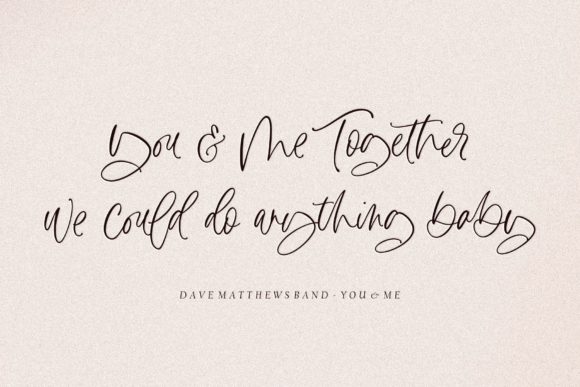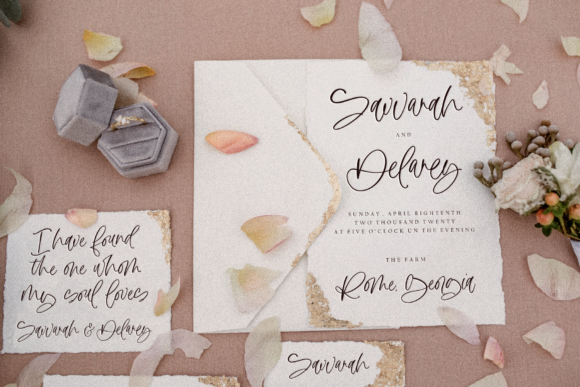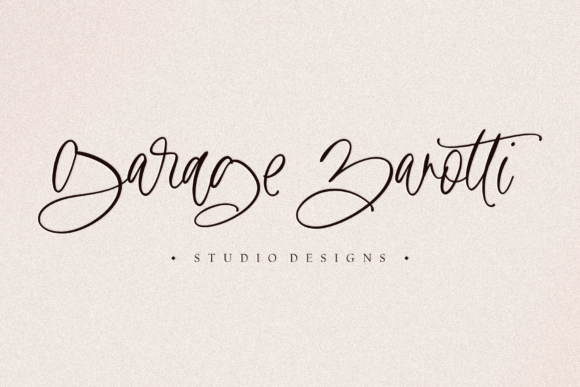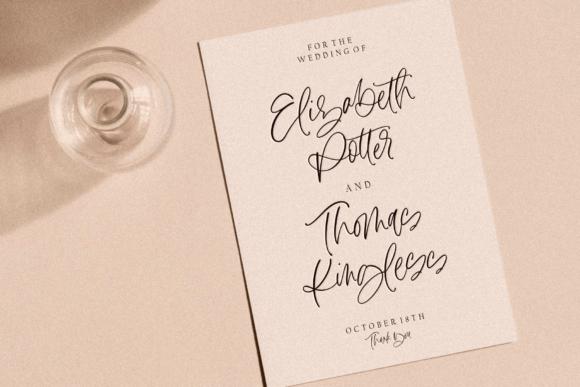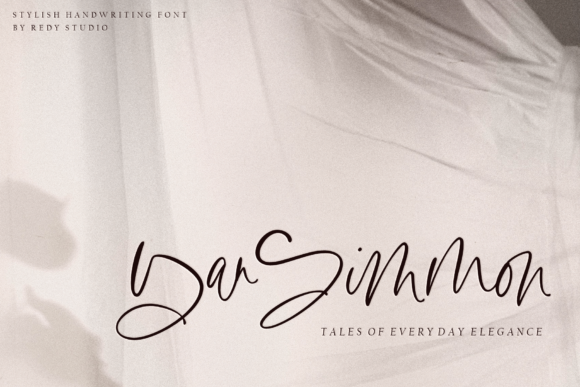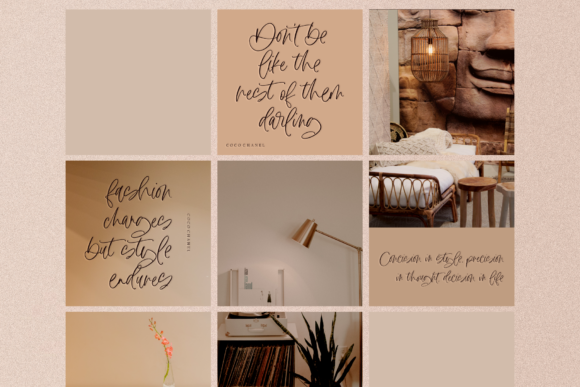
Introduction to Diary Writing Font
As I sat at my desk, surrounded by scattered papers and half-finished projects, I stumbled upon a font that brought a spark of inspiration to my creative corner. The Diary Writing Font, with its elegant and whimsical feel, instantly captured my imagination. Its high quality design made it the perfect addition to my design resource collection.
Whether you’re working on a personal project or a commercial design, the Diary Writing Font is a valuable asset. Its wide range of applications, from greeting cards to headlines, makes it an ideal choice for designers looking to add a touch of personality to their work. With its transparent background and free download option, this font is a treasure trove for creatives seeking to elevate their designs.
As I delved deeper into the Diary Writing Font, I discovered its versatility and the ease with which it can be used in various design projects. This enchanting handwritten font is a must-have for any designer looking to add a touch of sophistication and elegance to their work.
Key Features of Diary Writing Font
- High-quality, cursive script font ideal for creative projects and design resources.
- Perfect for use in digital and print media, including journals, scrapbooking, and invitations.
- Unique characteristics include elegant flourishes and subtle connectivity between letters, adding a touch of sophistication to your design.
Honest Review: Diary Writing Font
I recently stumbled upon the Diary Writing Font and was immediately drawn to its unique, handwritten style. As a designer, I’m always on the lookout for high-quality design resources that can elevate my creative projects.
Here are some of the things I like about the Diary Writing Font: ✨ It’s a free download, making it a great resource for designers on a budget. ✨ The font has a transparent background, which allows for easy layering and manipulation. ✨ The design is highly customizable, making it perfect for a wide range of creative projects.
However, there are a few limitations to consider: ⚠️ The font is not as versatile as some other handwritten fonts on the market. ⚠️ Some users may find the design to be a bit too whimsical or childish.
Overall, I would recommend the Diary Writing Font to designers looking for a high-quality, free design resource for their creative projects. While it may not be suitable for every project, it’s a great option for those looking for a unique, handwritten style.
How to Use Diary Writing Font
Designing with Diary Writing Font
The Diary Writing Font is a high-quality design resource that can add a personal touch to your creative project. You can download it for free from various websites, and it’s perfect for creating a transparent background effect in your designs.
Tips for Getting the Most Out of Diary Writing Font
Some tips for getting the most out of the Diary Writing Font include experimenting with different font sizes, colors, and combinations to create unique designs. You can also use it to create a consistent brand identity or to add a personal touch to your designs.
The Diary Writing Font is commonly used in creative projects such as journaling, scrapbooking, and card making. It’s also perfect for creating custom invitations, posters, and social media graphics.